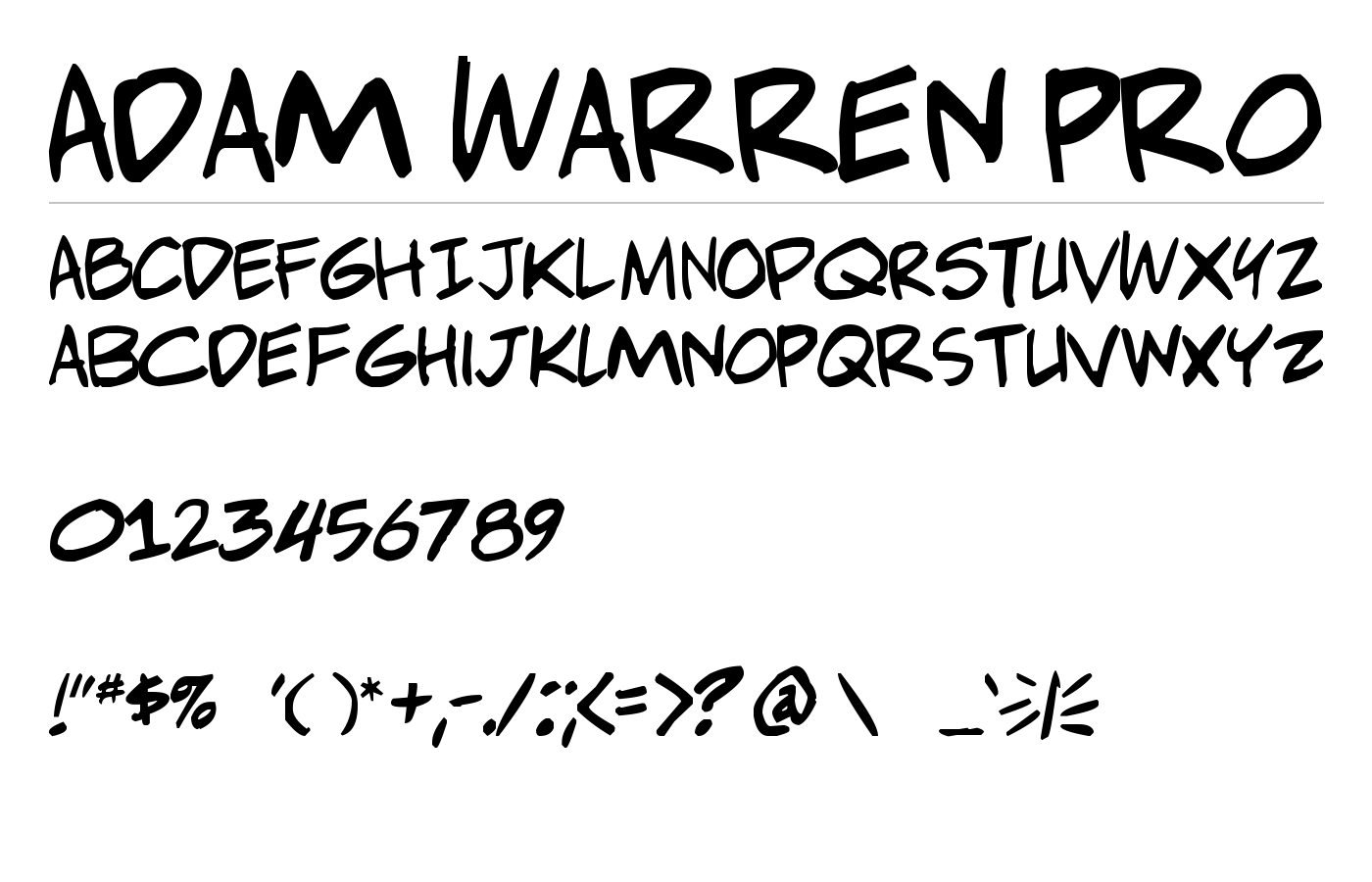
Adam Warren Pro is a bold, casual handwritten font with a lively and expressive style that feels spontaneous and energetic. Its irregular, slightly rough strokes and informal letterforms make it ideal for creative projects, playful branding, and dynamic headlines where a personal, approachable touch is desired. This font works well for designs seeking a fun, friendly vibe that stands out with personality and charm.
Adam Warren pro Font
About Adam Warren pro Font